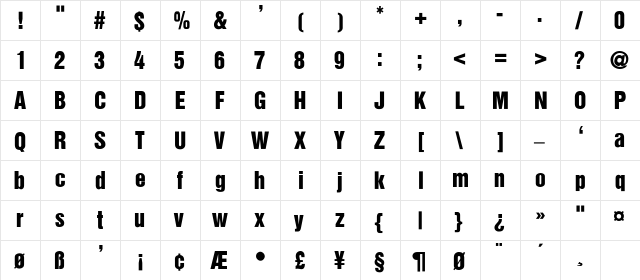
Knoor SemiBold Regular
Design Context for Knoor SemiBold Typeface
Knoor SemiBold takes a measured approach to typography — its balanced proportions and neutral character make it a reliable workhorse for both digital and print work. The heavy weight commands attention and anchors typographic hierarchies.